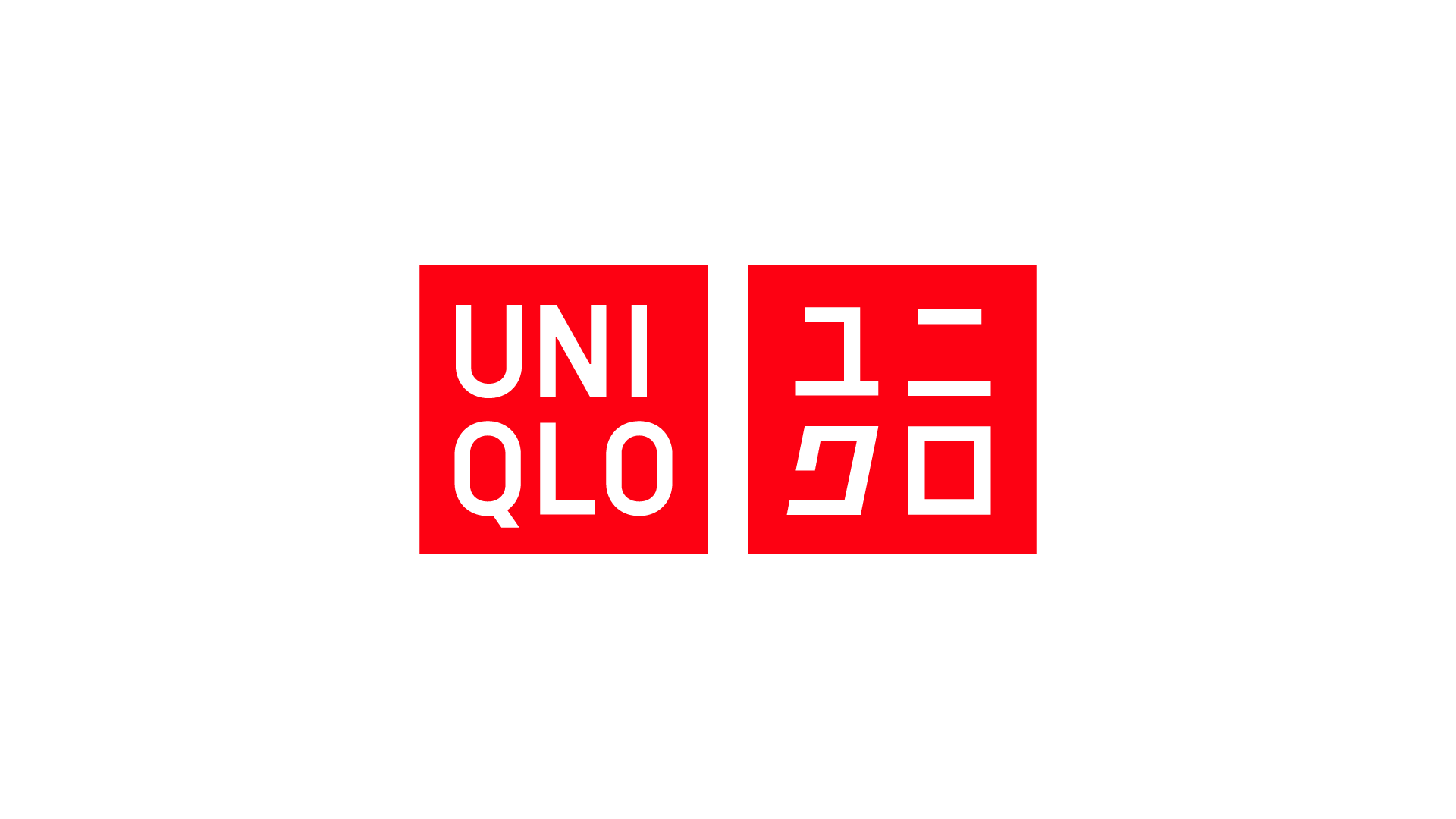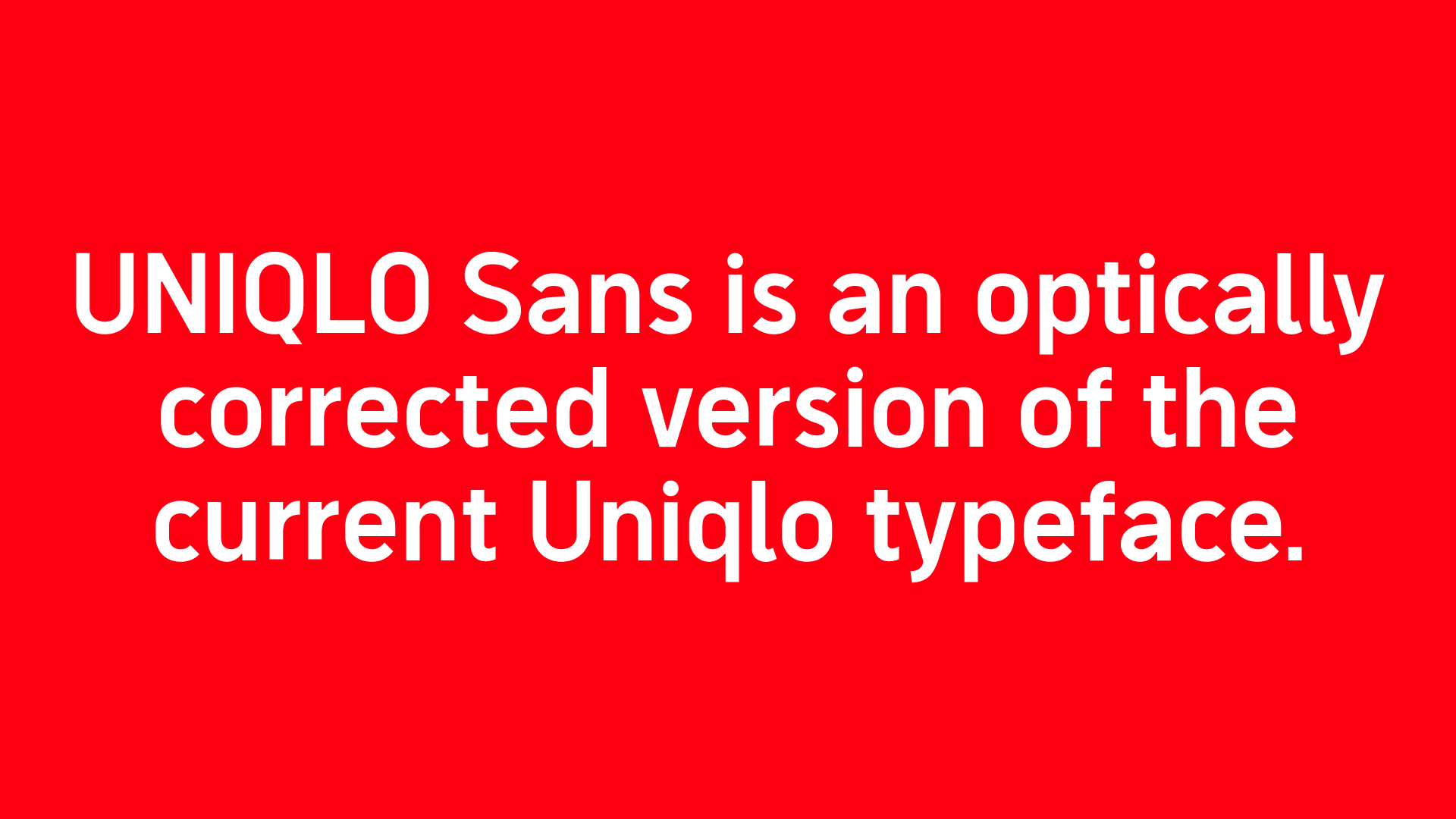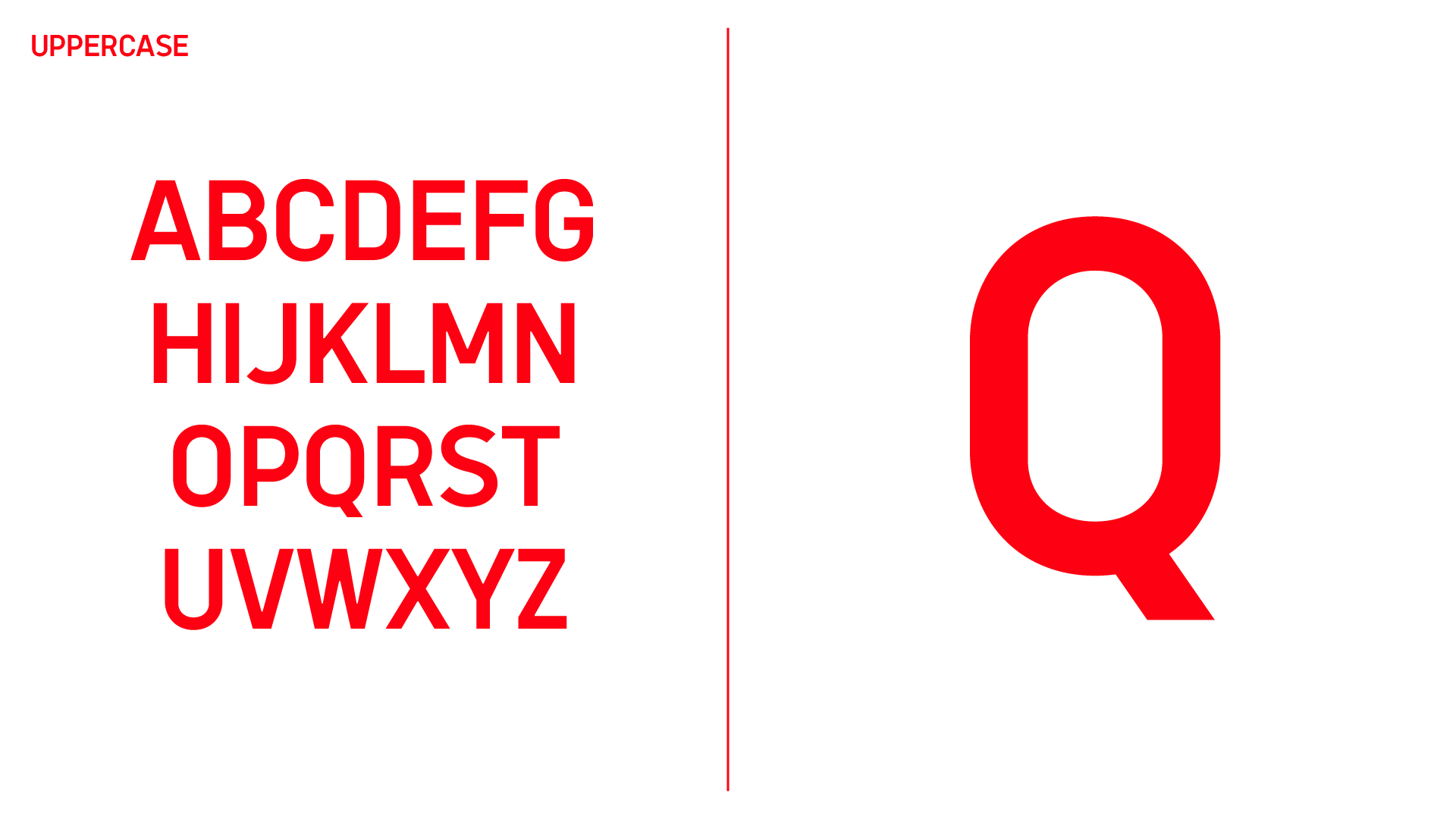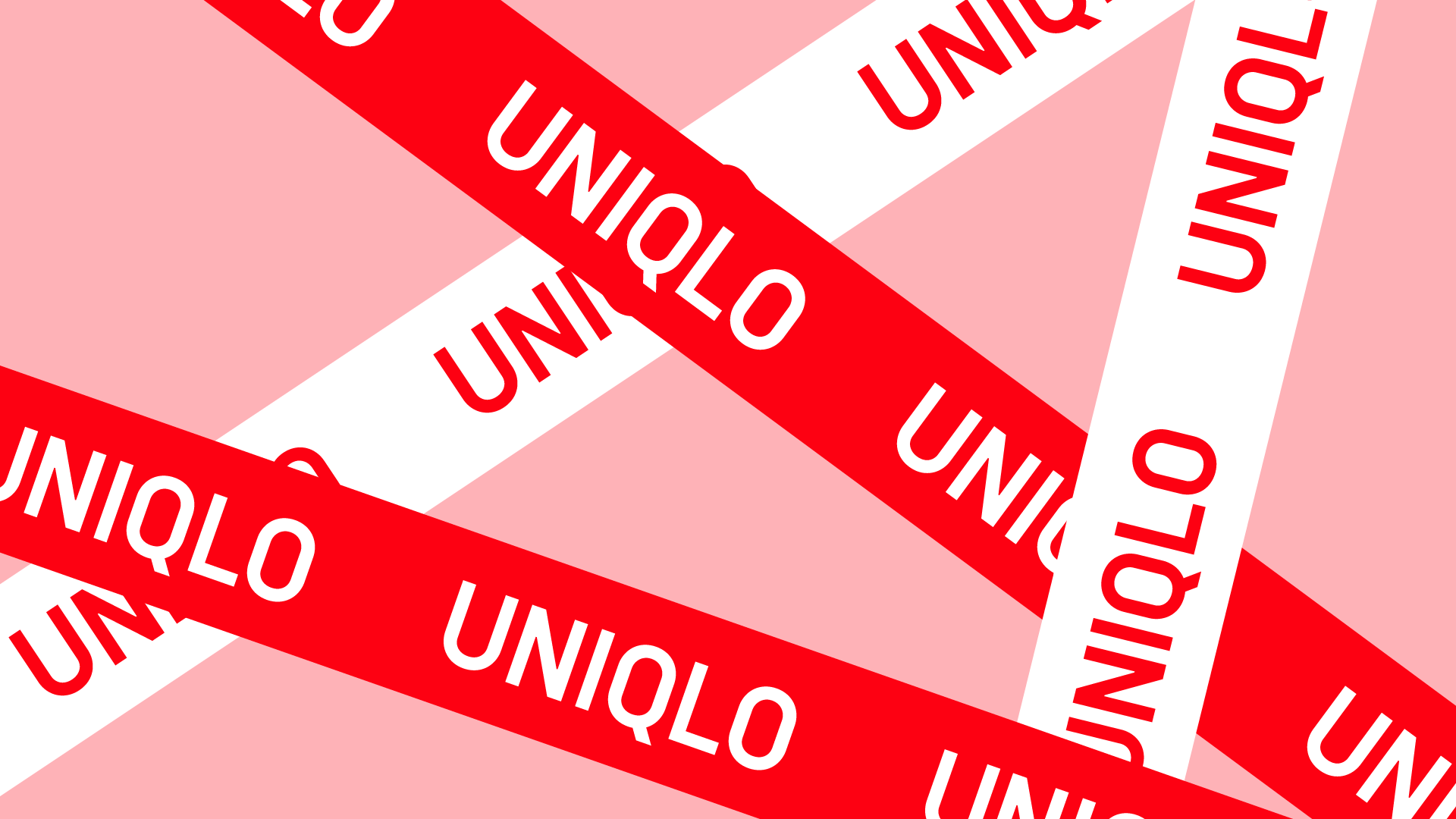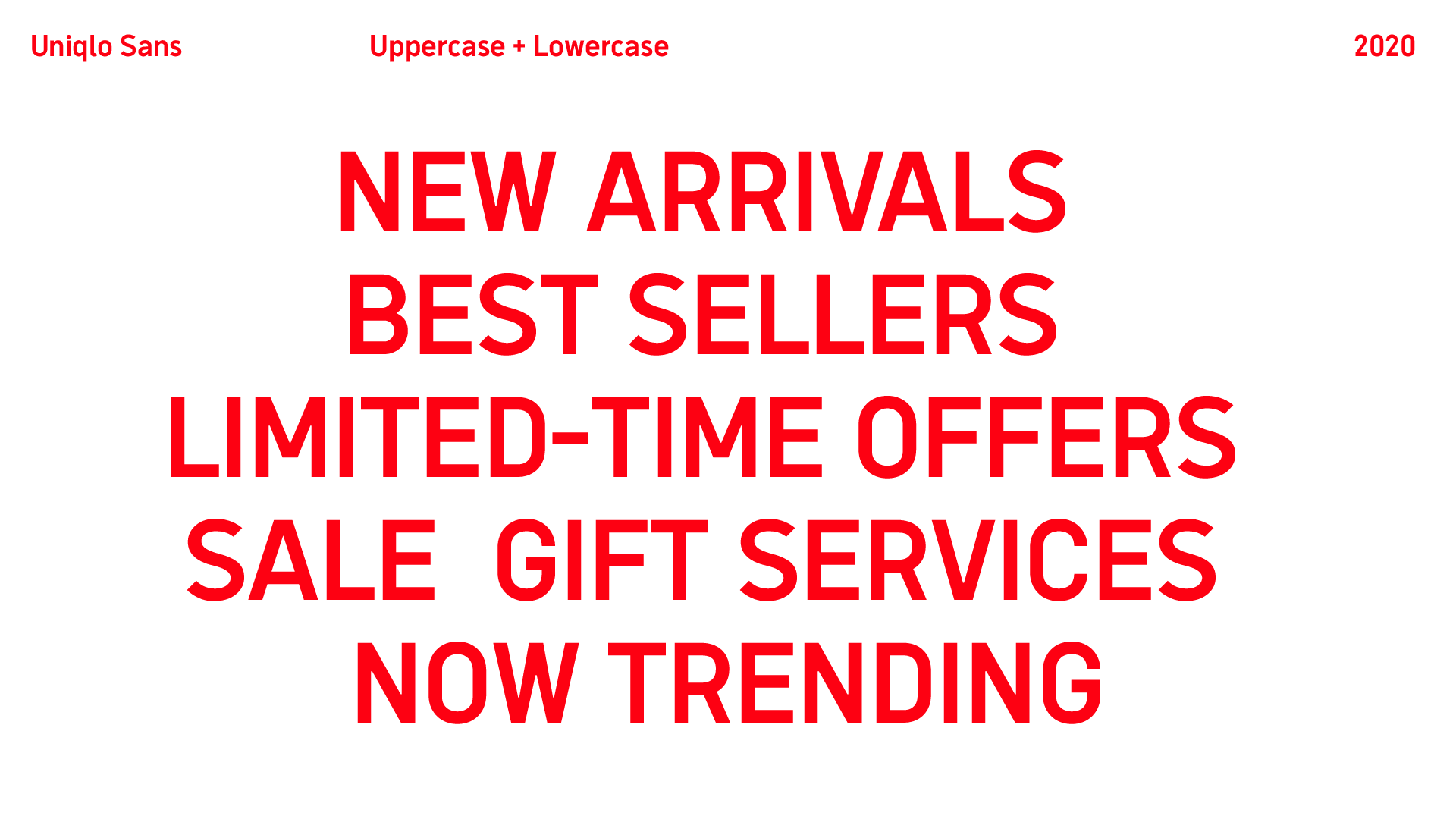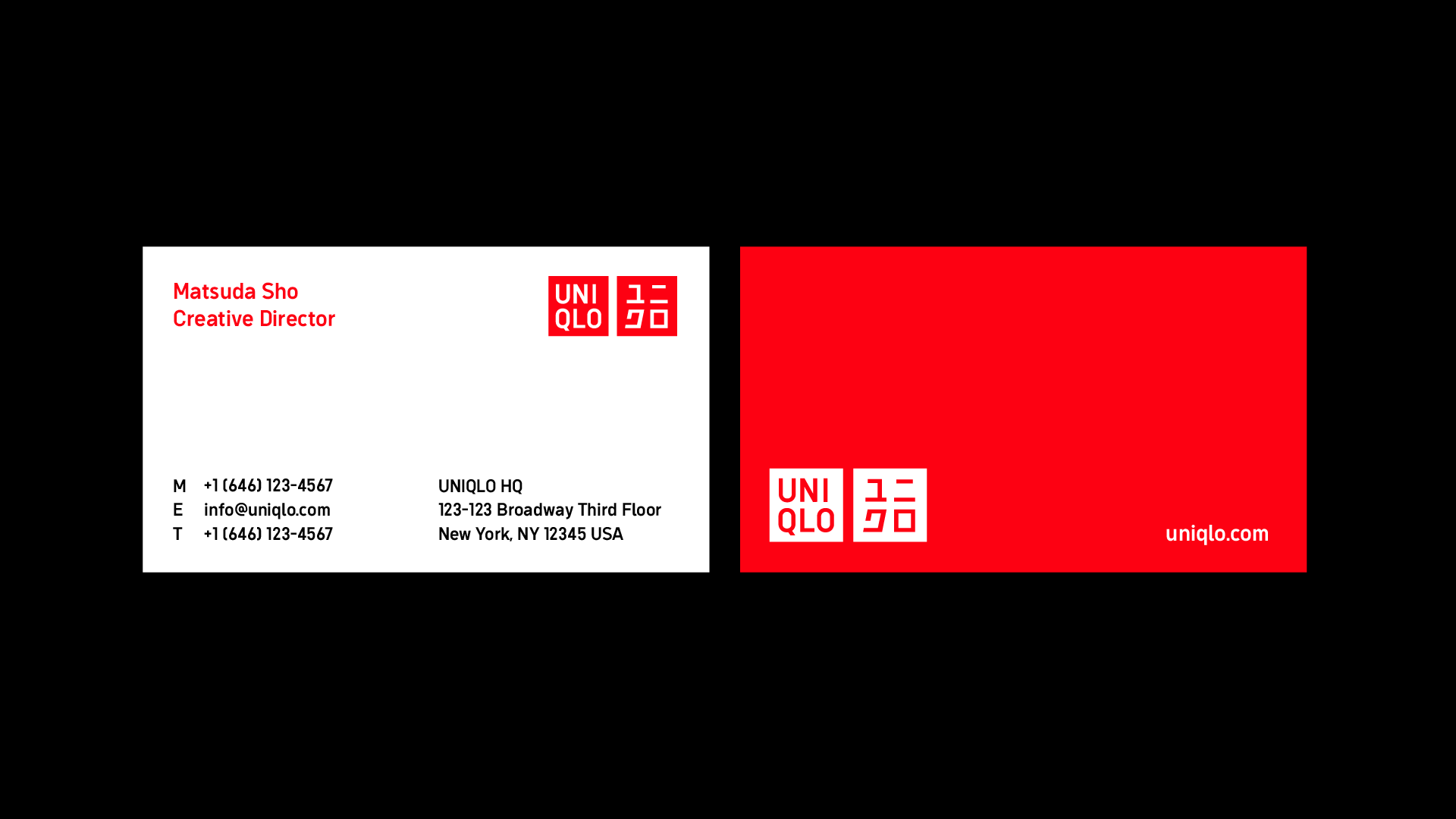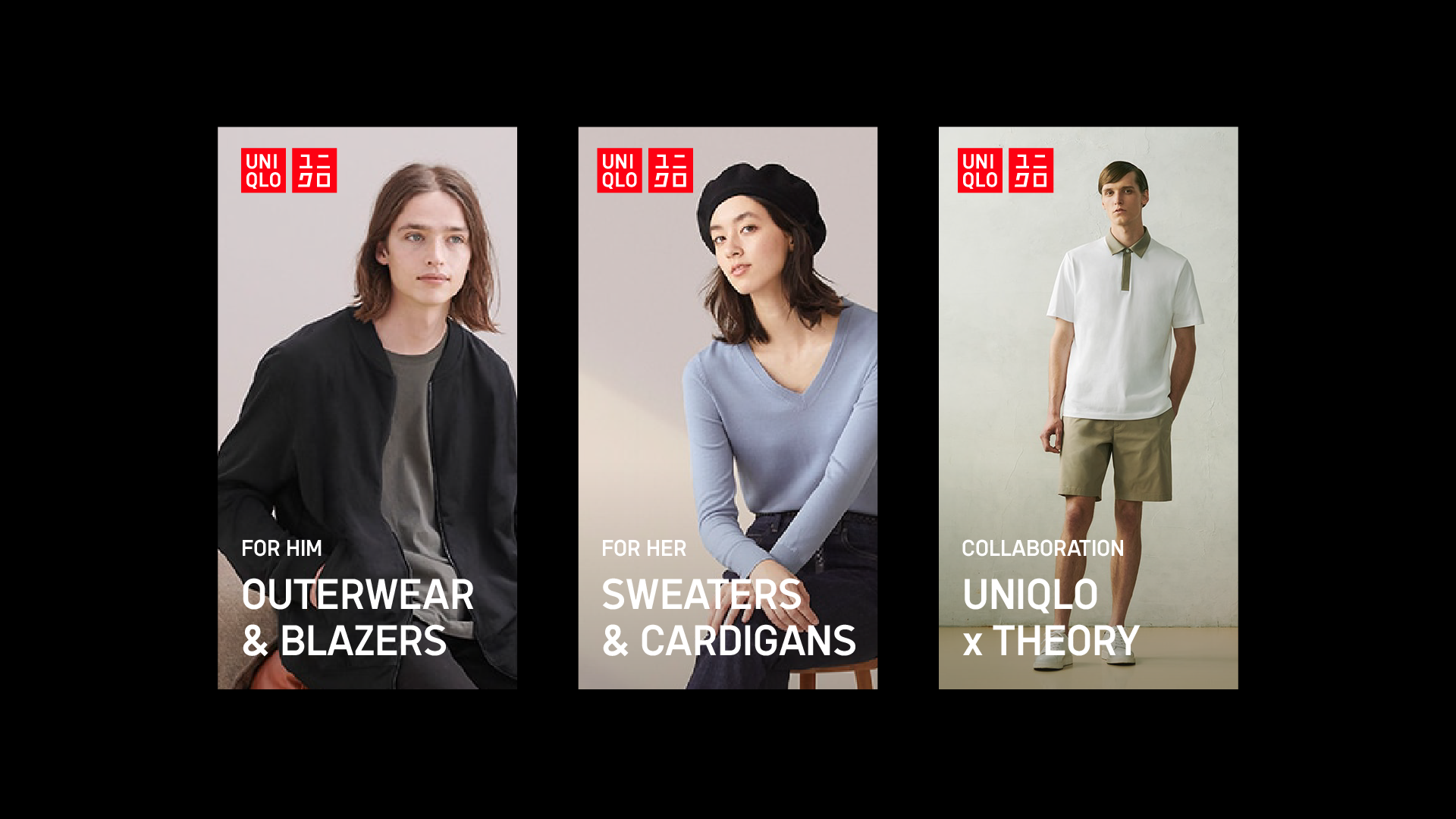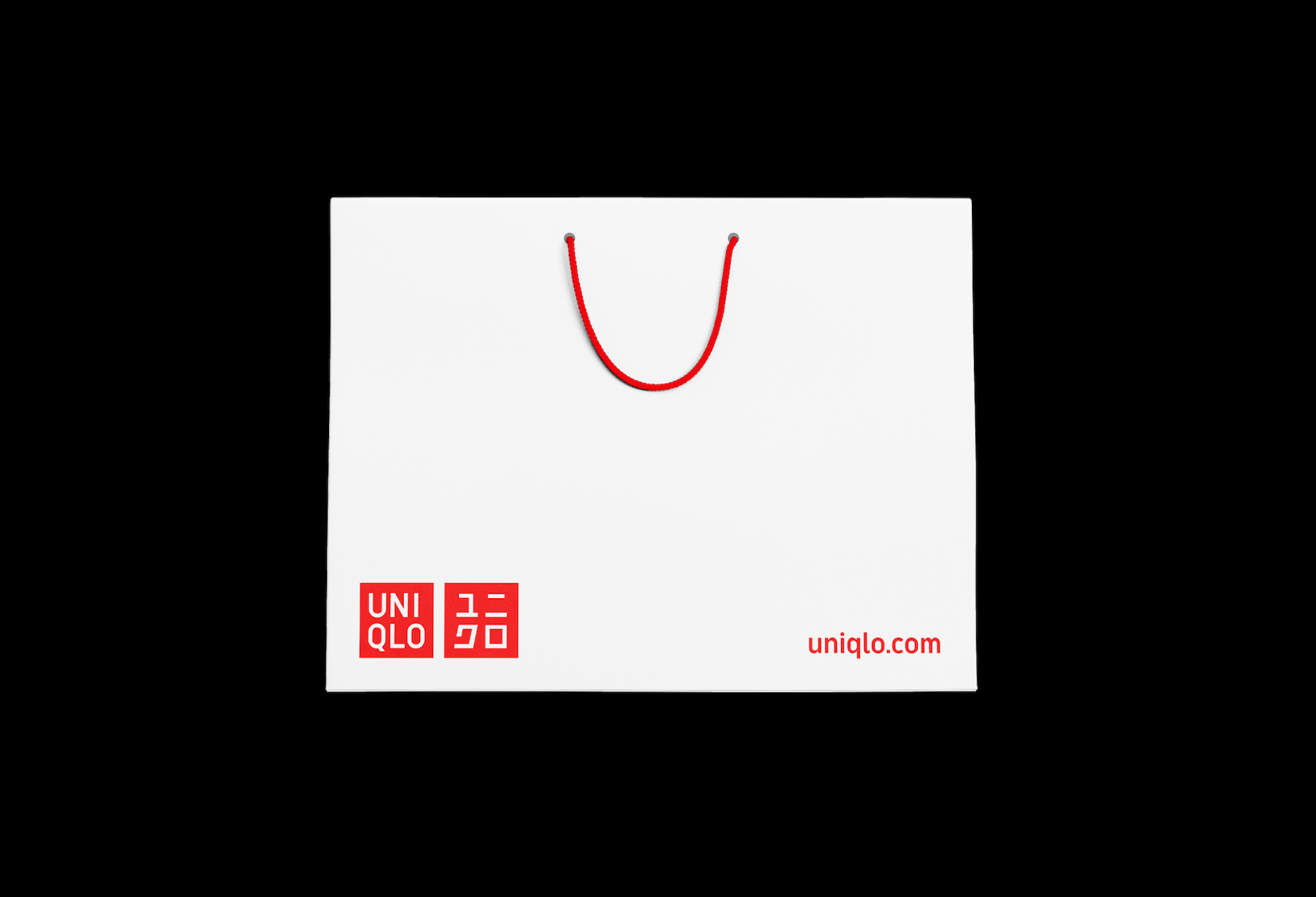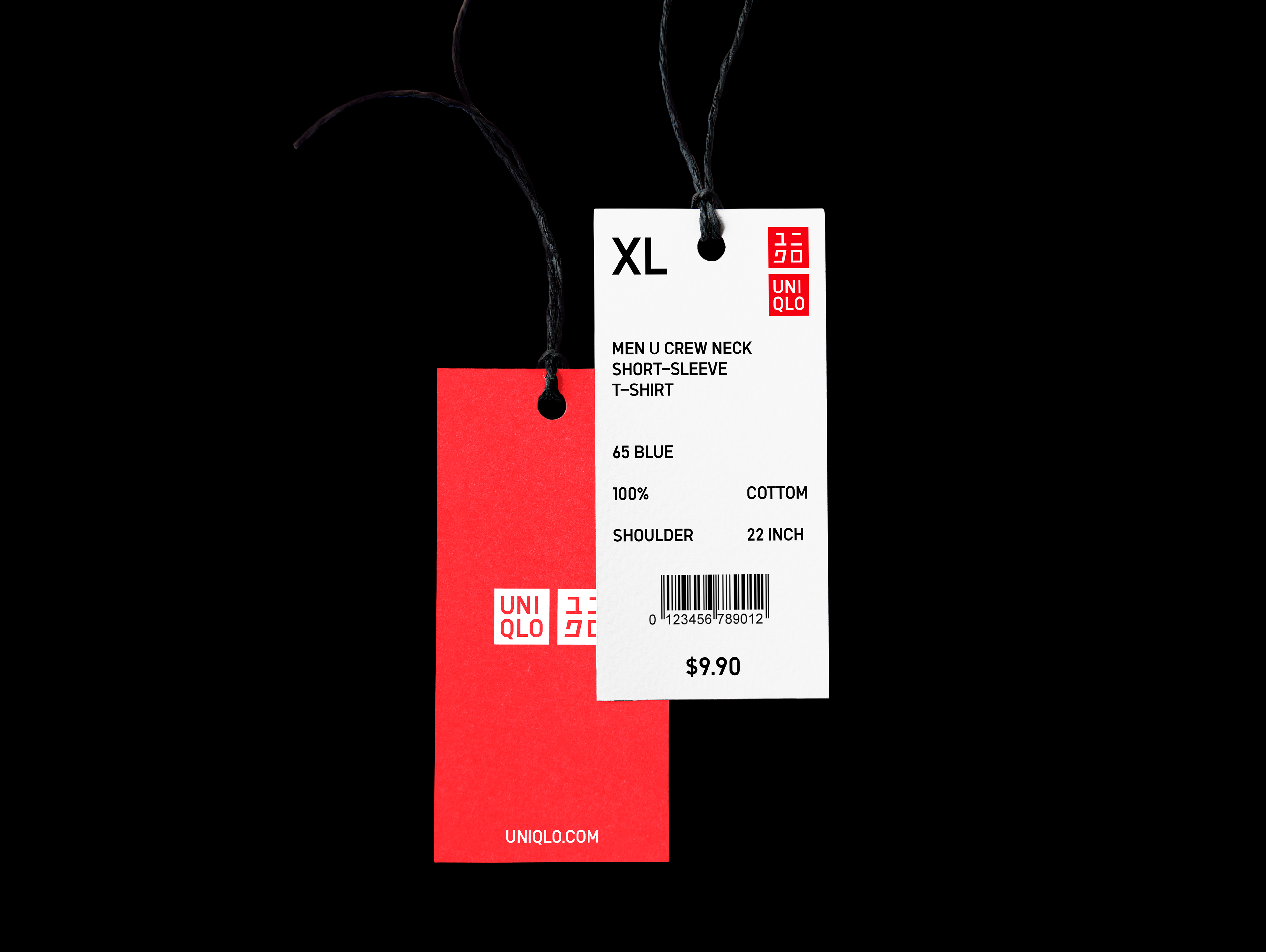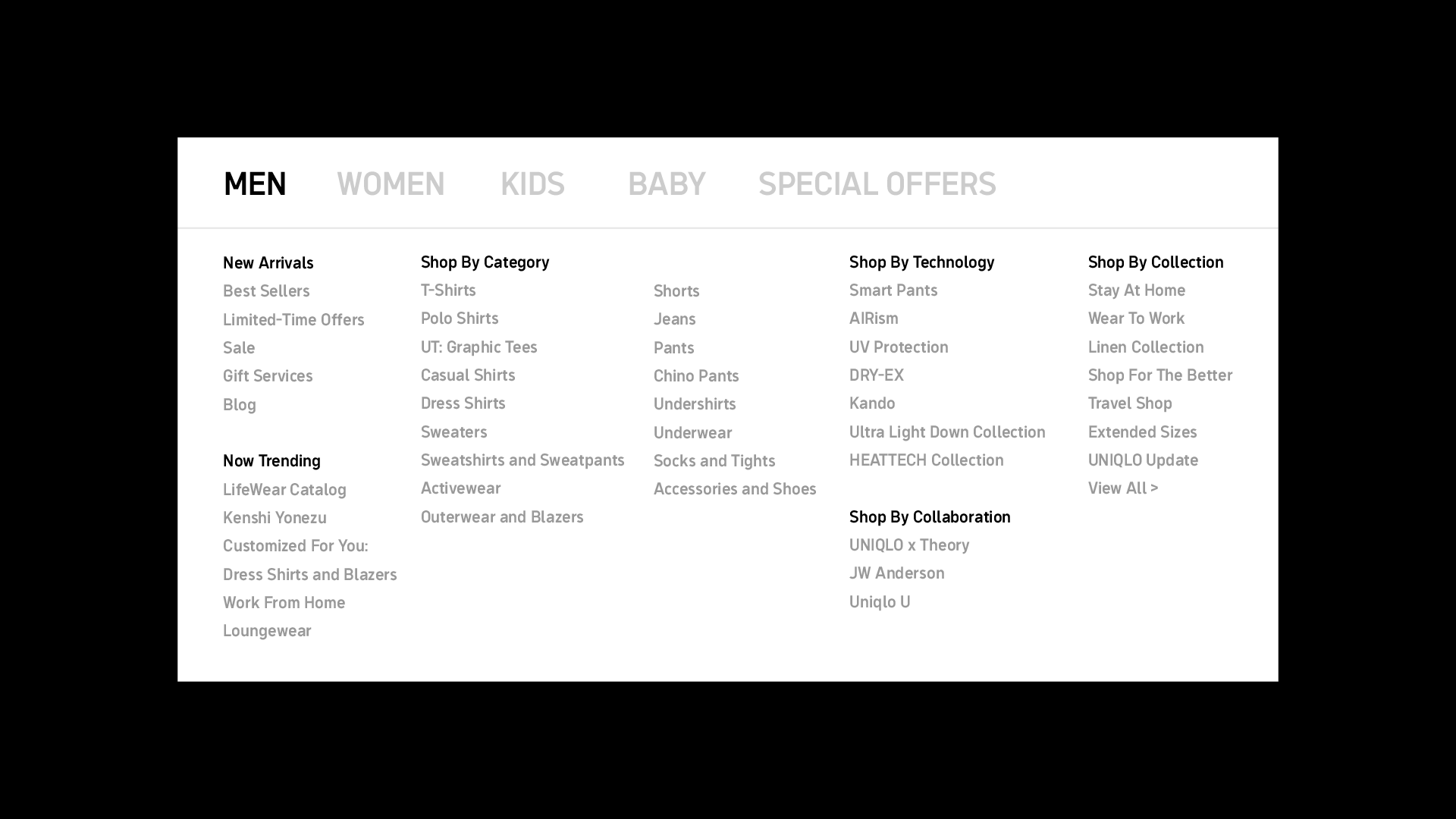
As a designer, I love the brand, Uniqlo, but I always felt uncomfortable to look at its ugly and terribly-kerned typeface. Since it is not usable as a brand typeface, Uniqlo is currently using an ambiguous combination of fonts, which makes the overall brand experience unsolid.
Through this project, I aimed to clarify the brand image of Uniqlo by redesigning its typeface by going through the optical adjustment to make it more versatile.
Uniqlo라는 브랜드를 좋아하기는 하지만, 항상 Uniqlo의 끔찍한 폰트를 볼때마다 디자이너로서 안타까우면서도 불편함을 느껴왔습니다. 이번 프로젝트는 통해 기존 Uniqlo 폰트 활자들의 특징들을 유지하면서도 개선하여, 브랜드 전체의 인상을 명확하게 만드는 것을 목표로 하였습니다.